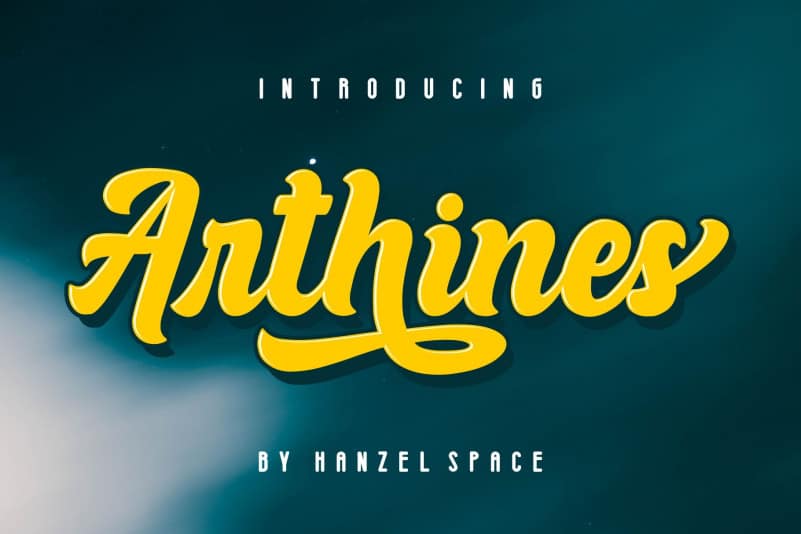
Arthines Font
Arthines Script Font is an incredibly unique handwritten,The shape is modern and style is very natural. Fresh from the Hanzel Space as inspired to create easy digital lettering for you. Also comes with lots of alternate characters lowercase and uppercase, ligatures, setting up for easy use on the initial and terminal forms. It will be great for Logotypes, Posters, Digital Lettering Arts, Clean design, Branding Design, Sign, etc.